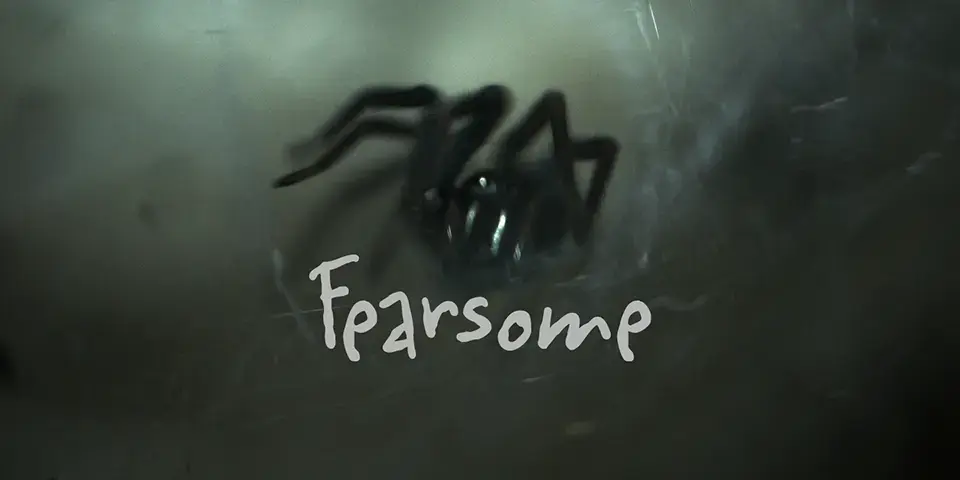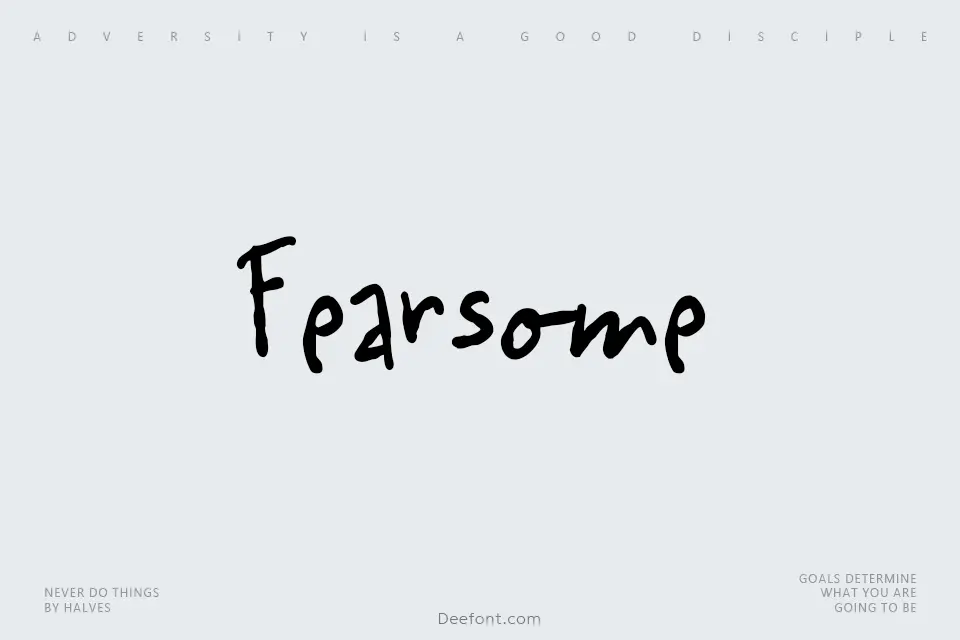
Fearsome Font
Fearsome is a haunting handwritten script font designed by David Kerkhoff that exudes a distinctly unsettling 'psychopath' aesthetic. Inspired by psychological thrillers, this typeface features rough, hand-drawn letterforms with organic irregularities that capture the appearance of distressed handwriting. The font comes with an extensive collection of diacritical marks, making it versatile for multilingual projects. Its raw, menacing character makes Fearsome ideal for horror movie titles, Halloween posters, thriller book covers, haunted event promotions, and any design requiring an eerie, edgy atmosphere. Perfect for creating attention-grabbing headlines and display elements in entertainment, gaming, and spooky branding contexts.